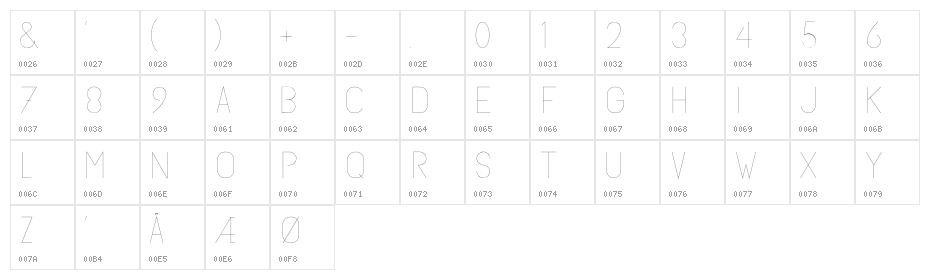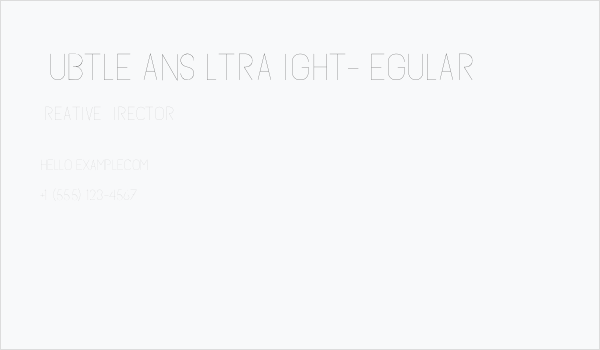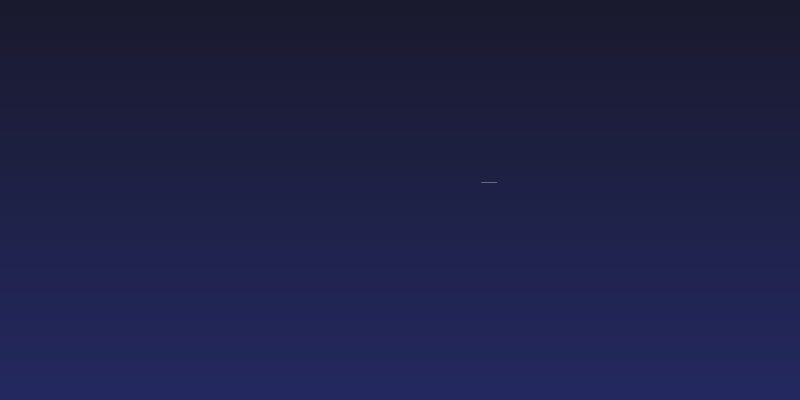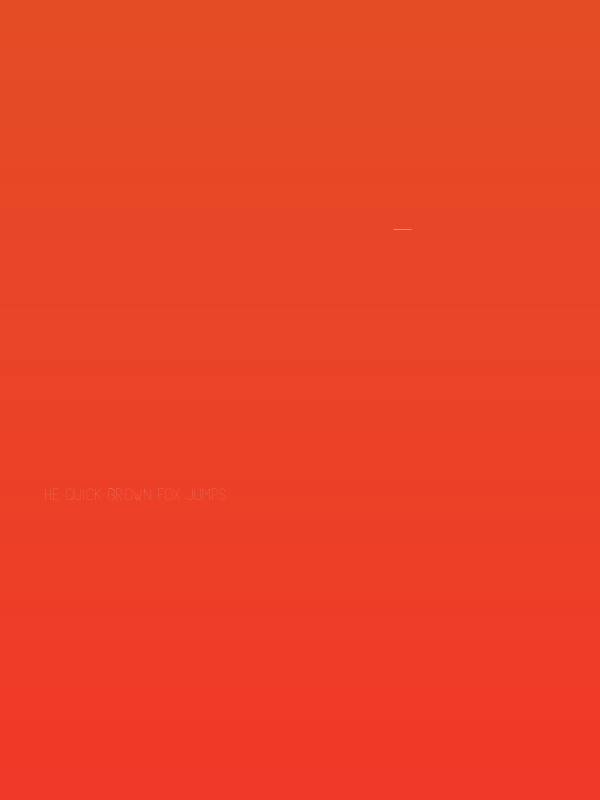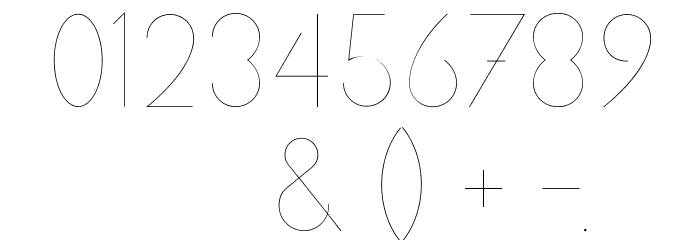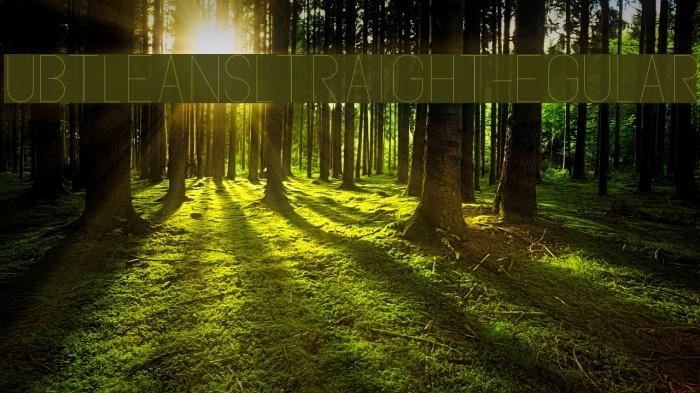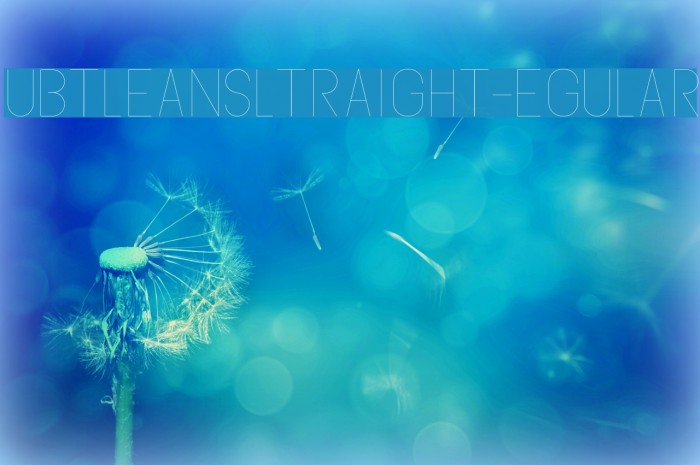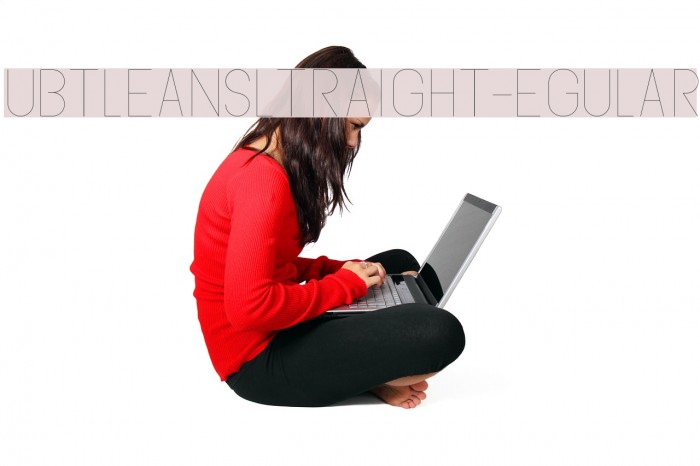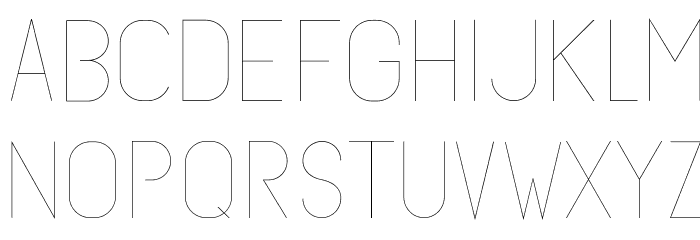
SubtleSansUltraLight-Regular Font
SubtleSansUltraLight-Regular Description
This font features an ultra-lightweight and minimalist design, characterized by its thin and delicate strokes. The letters are clean and modern, with a sans-serif style that emphasizes simplicity and elegance. The uniformity in stroke width across all characters gives it a sleek and contemporary appearance. Its geometric shapes and open counters enhance readability while maintaining a sophisticated look. The font's airy and spacious feel makes it ideal for projects that require a subtle yet stylish touch.
| Proposed Projects | Ideal for modern branding, minimalist design projects, fashion magazines, and high-end product packaging. |